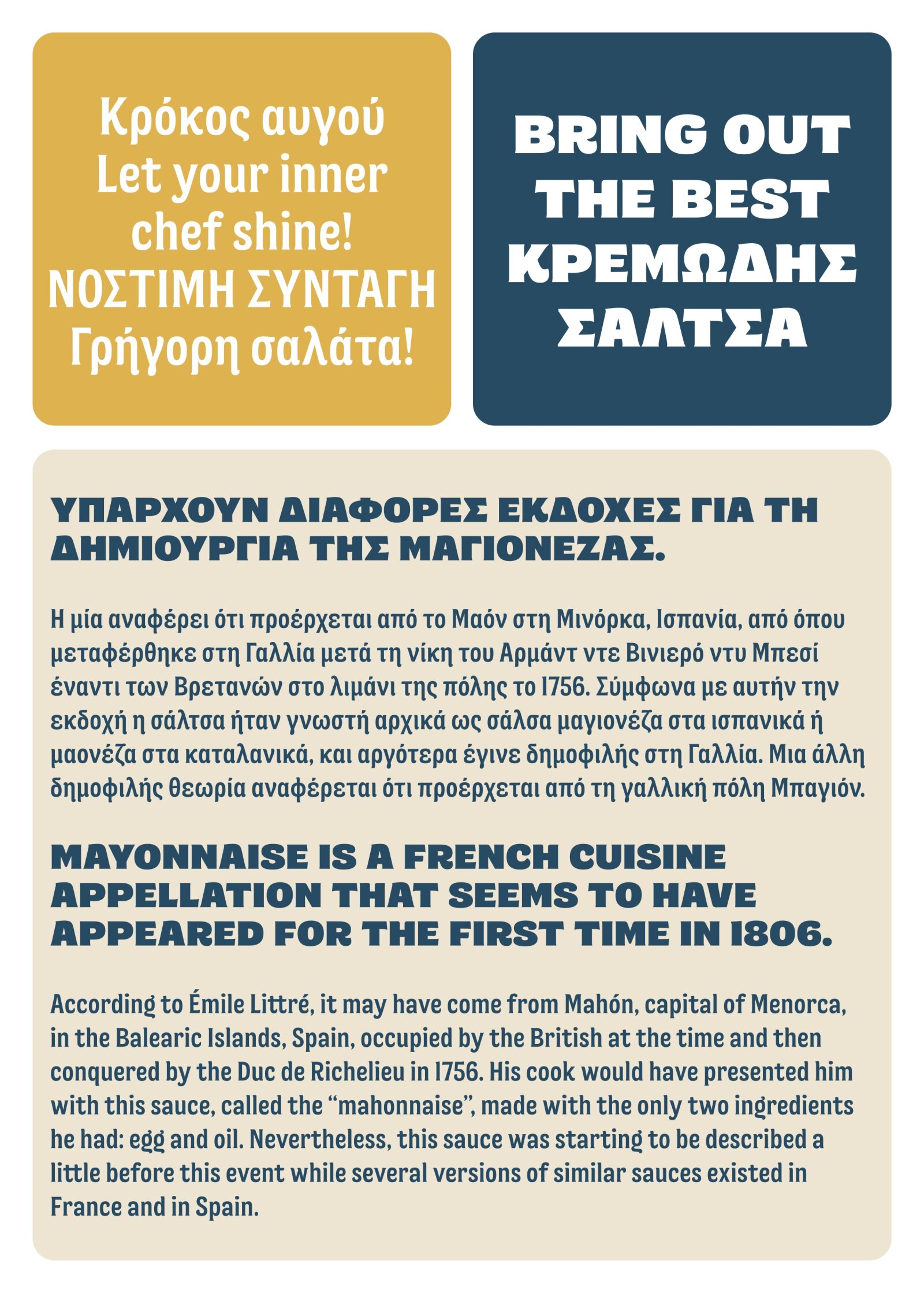
Dollop Serif
by Monotype Studio, Jordan Bell, Damien Collot
Greek
The typeface draws inspiration from the broader visual language of the brand and the experience it offers: the thickness, roundness and contrast of the lines capture the shapes and texture of the mayonnaise.